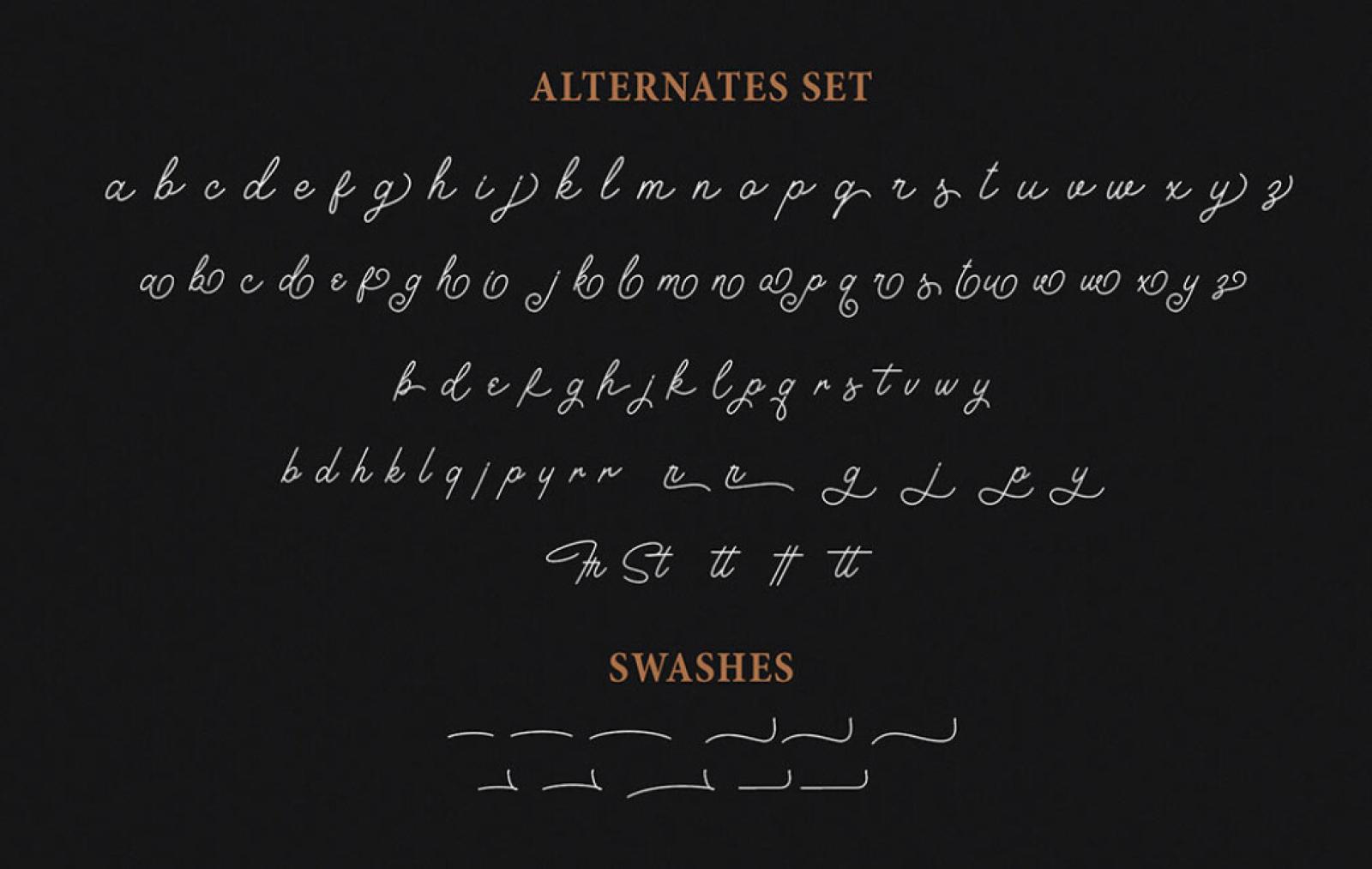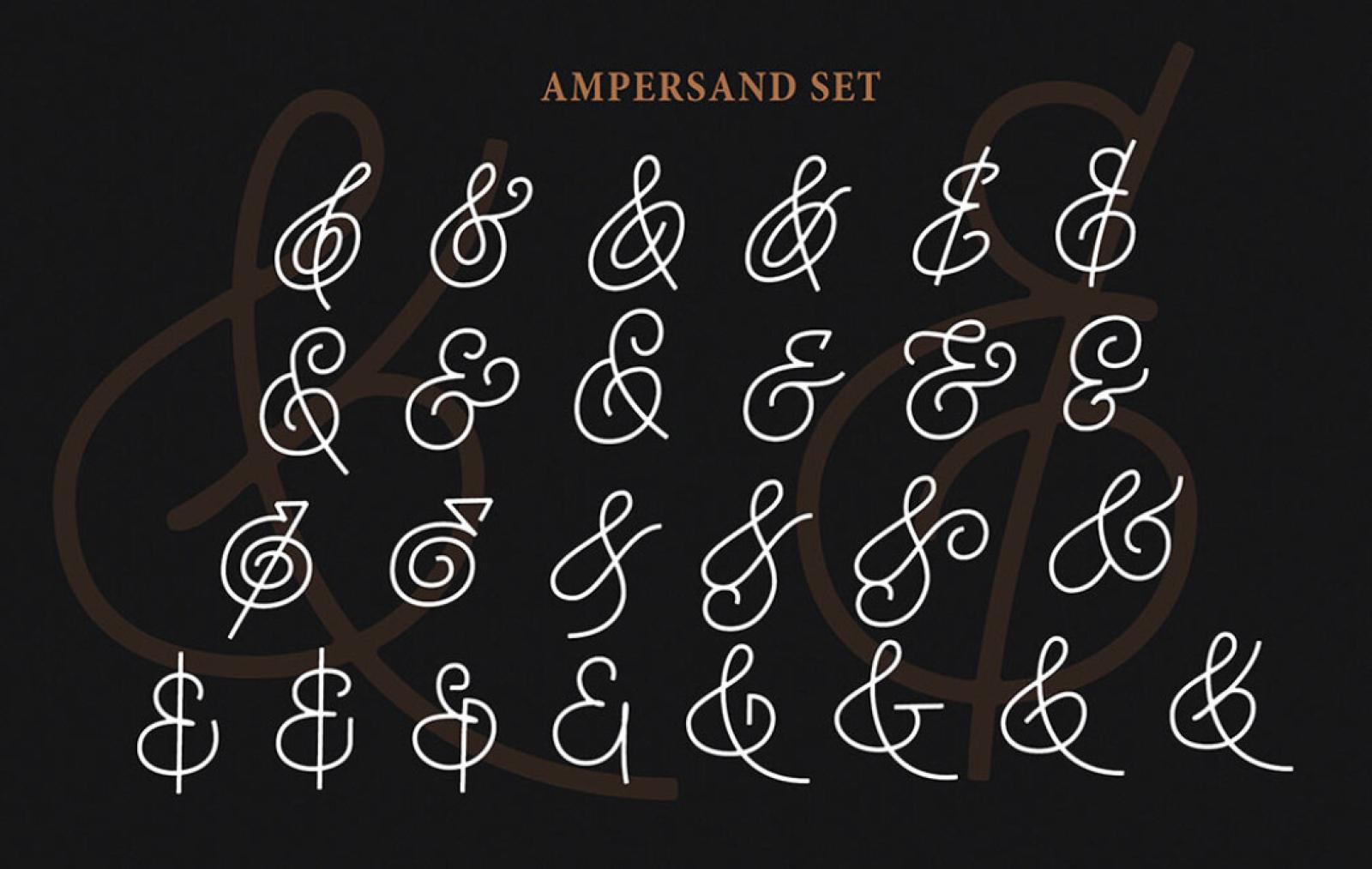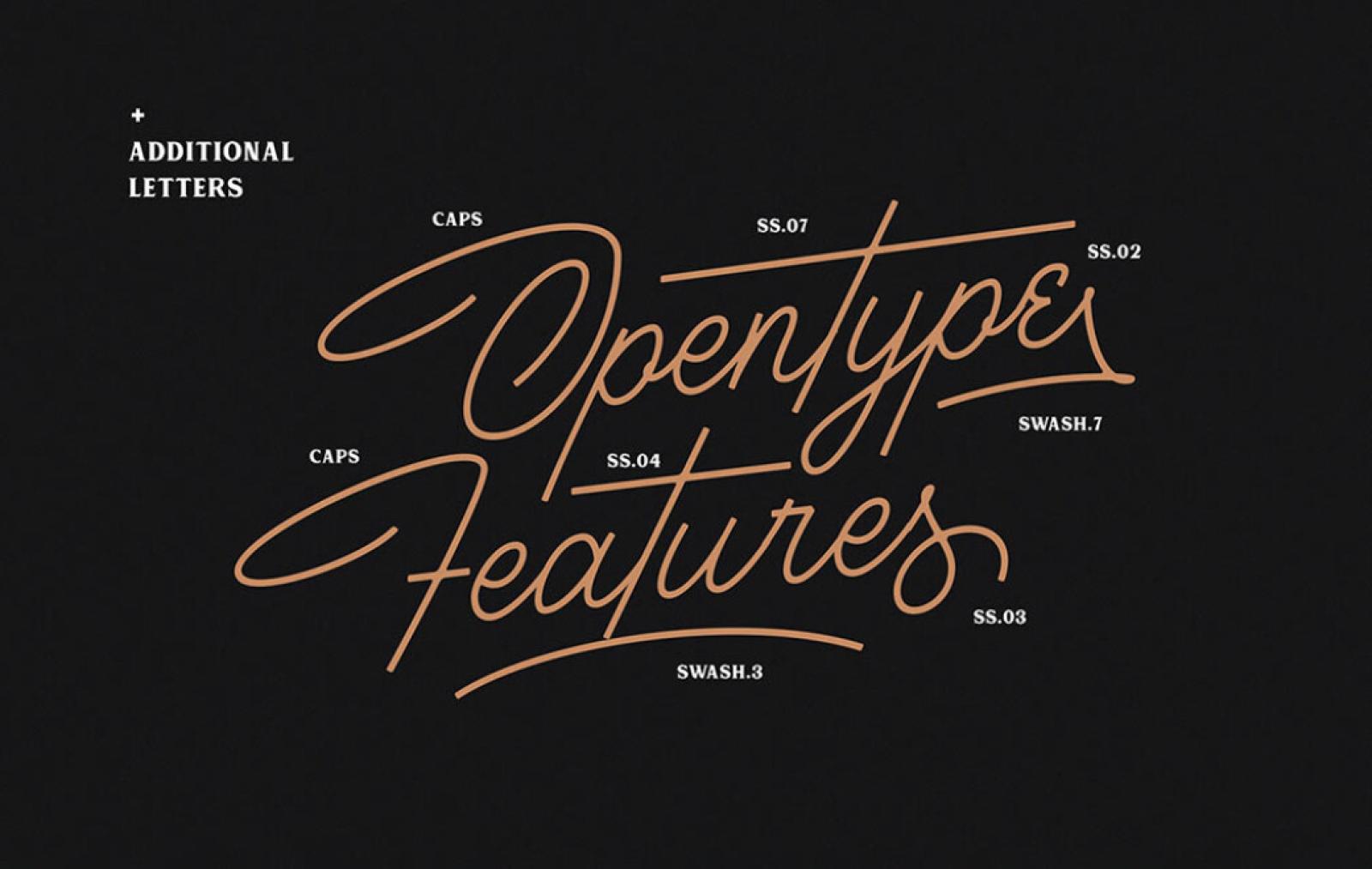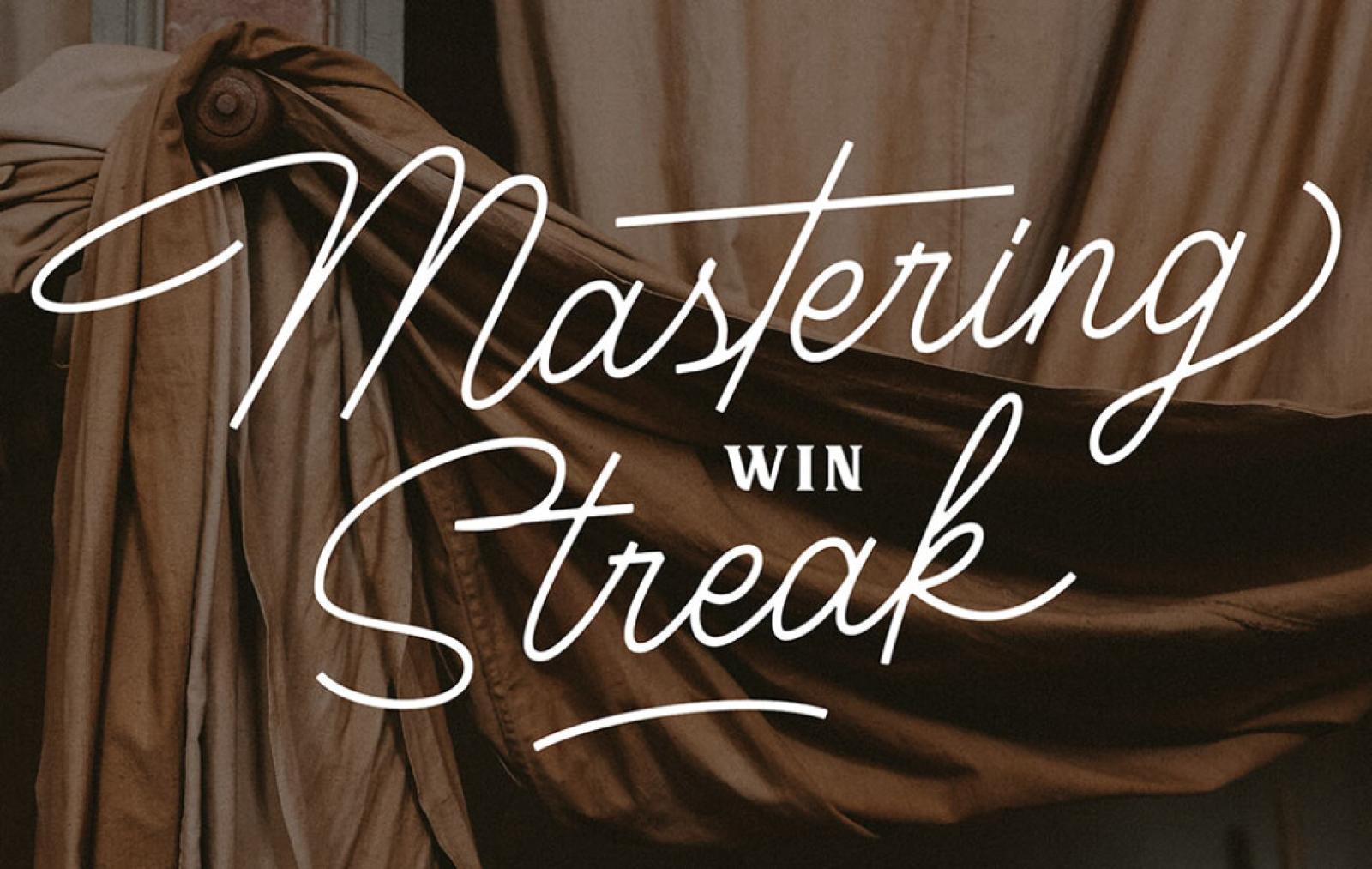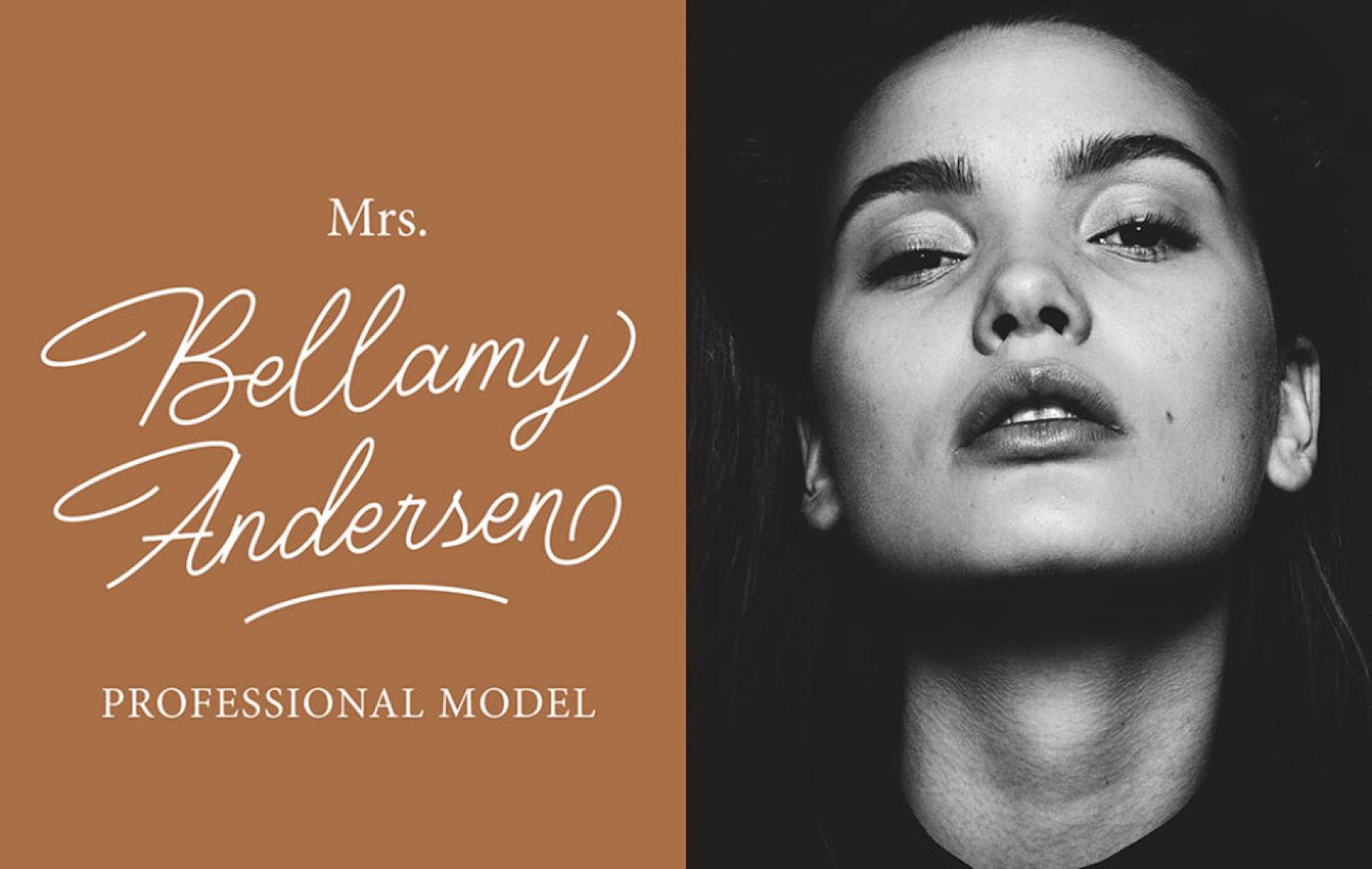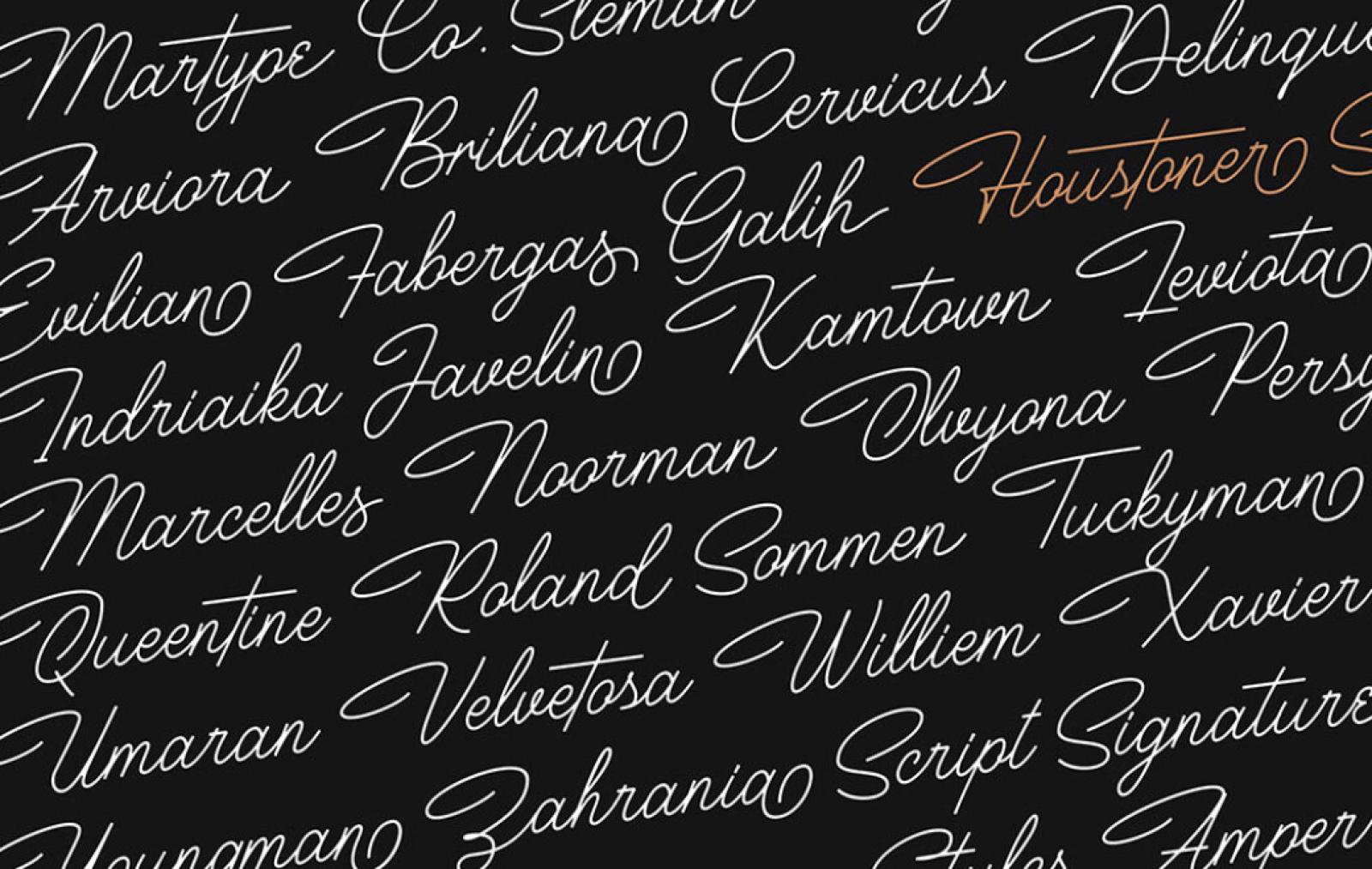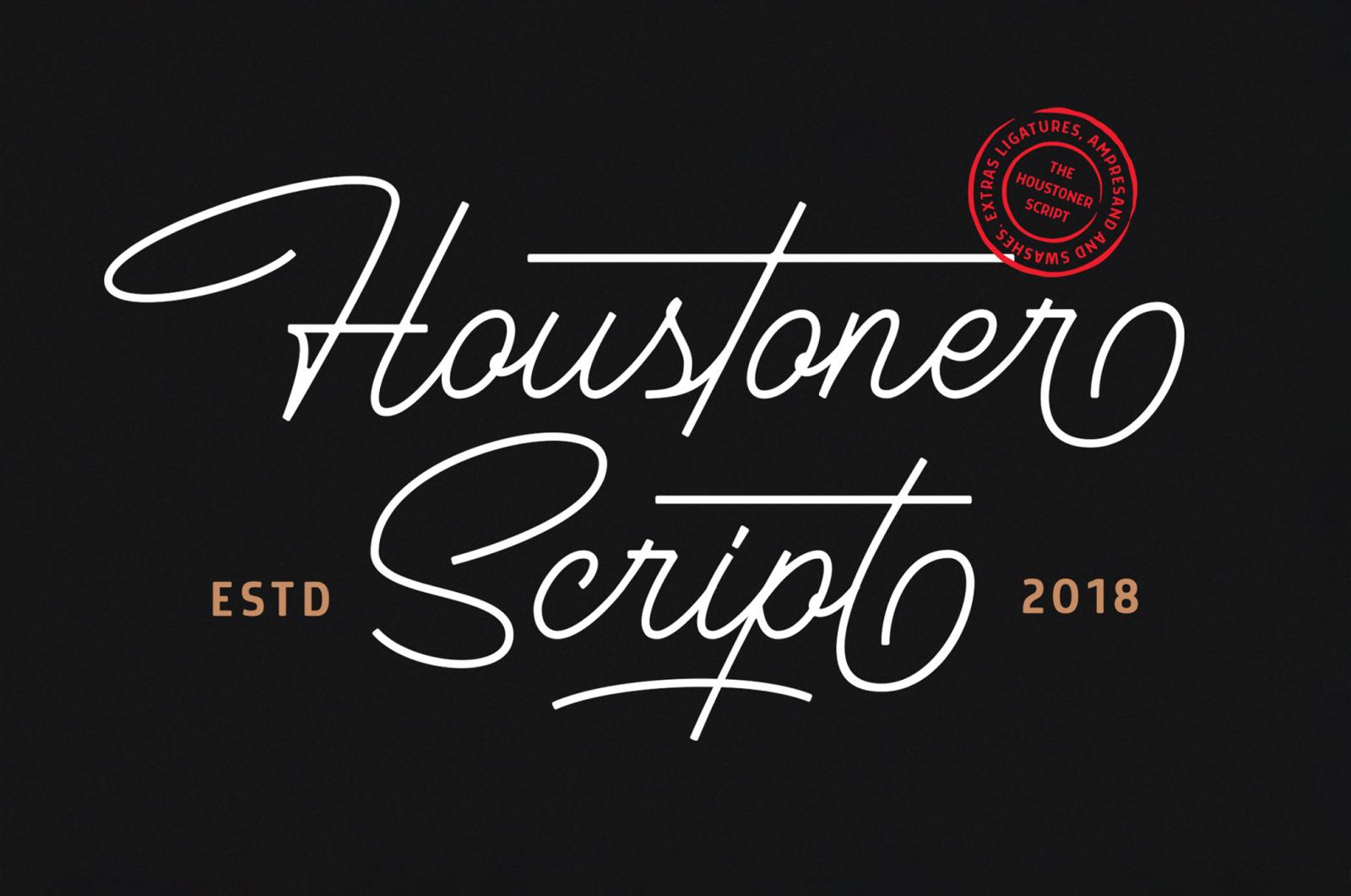
Houstoner Script Font
The sophisticated lettering in thin lines of this signature script font look so light and tender. Each elegant line is carried out with expertise in a never-ending splendid line.
Houstoner is a carefully handcrafted script typeface. Suitable for branding, T-shirt design, invitations, and logotypes. The font also includes the ampersand set to make your design prettier, more classy, elegant, and luxurious. Blessed with the elevated spirits from the 19th century!